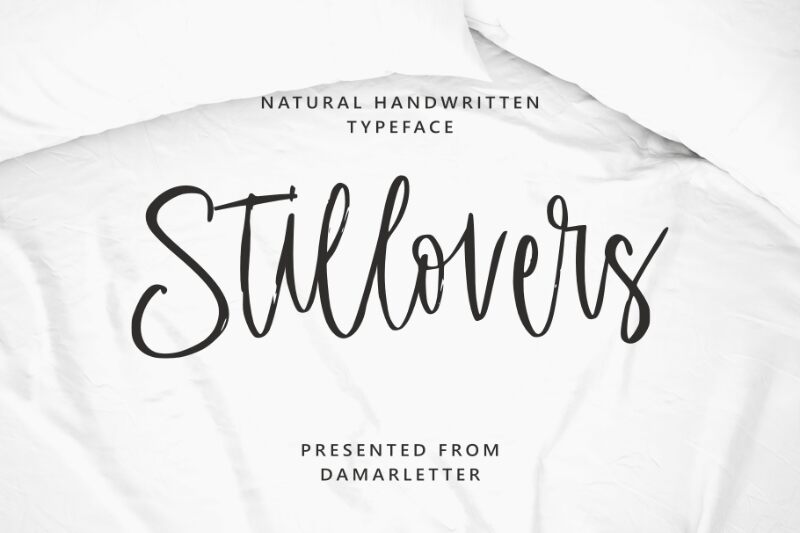
Stillovers, a natural handwritten font designed by Damarletter, exudes elegance and simplicity. With its light weight and semi-condensed width, this font is versatile for a range of projects.
Its graceful curves and organic strokes make it perfect for wedding invitations, greeting cards, and feminine branding designs. Stillovers adds a touch of sophistication to product packaging, magazine layouts, and social media graphics. This font effortlessly captures attention with its authentic penmanship feel, making it suitable for lifestyle blogs, poetry books, and motivational quotes.
Embrace the charm of Stillovers to elevate your creative endeavors to new heights.